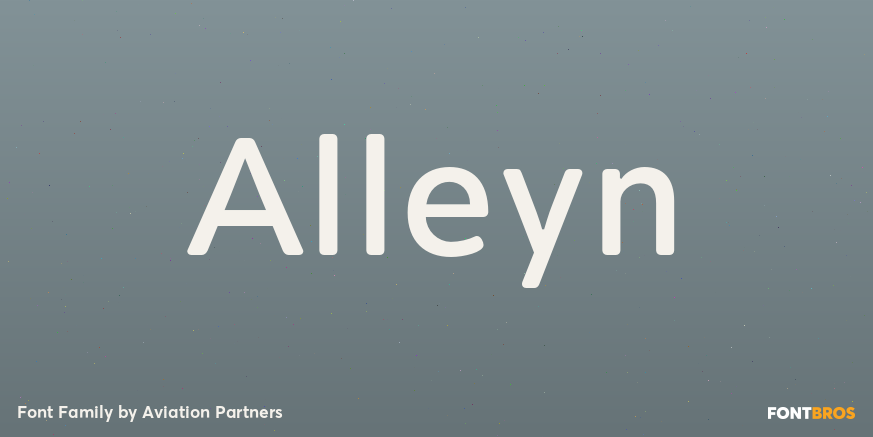
Alleyn
About Alleyn
Alleyn offers stylish simplicity in a typeface that sets beautifully both on screen and paper. A geometric uppercase provides strong all-caps headings while the lowercase retains superb legibility at any size.